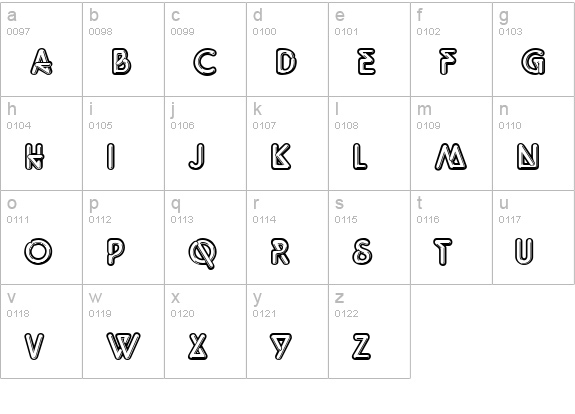
Neon Lights Font Details
Neon Lights font is an electrifying and vibrant typeface that brings a touch of retro futurism to any design project. With its bold and glowing letters, this font captures the essence of neon signage, creating a captivating visual experience. The intricate details and sleek curves of each character give it a dynamic and eye-catching appeal. This font is perfect for adding a pop of excitement to various creative endeavors, whether it's designing logos, headlines, posters, or even social media graphics. Its versatility allows it to be used in both digital and print formats, making it a go-to choice for designers who want to make a bold statement. One of the best things about Neon Lights font is that it is free. Yes, you read that right - this font is available for download at FontsMarket.com without any cost. With its high-quality design and accessibility, it's a valuable resource for designers who want to elevate their projects without breaking the bank. So, if you're looking to add a touch of luminosity and energy to your designs, Neon Lights font is the perfect choice. Download it for free at FontsMarket.com and let your creativity shine with this electrifying typeface.